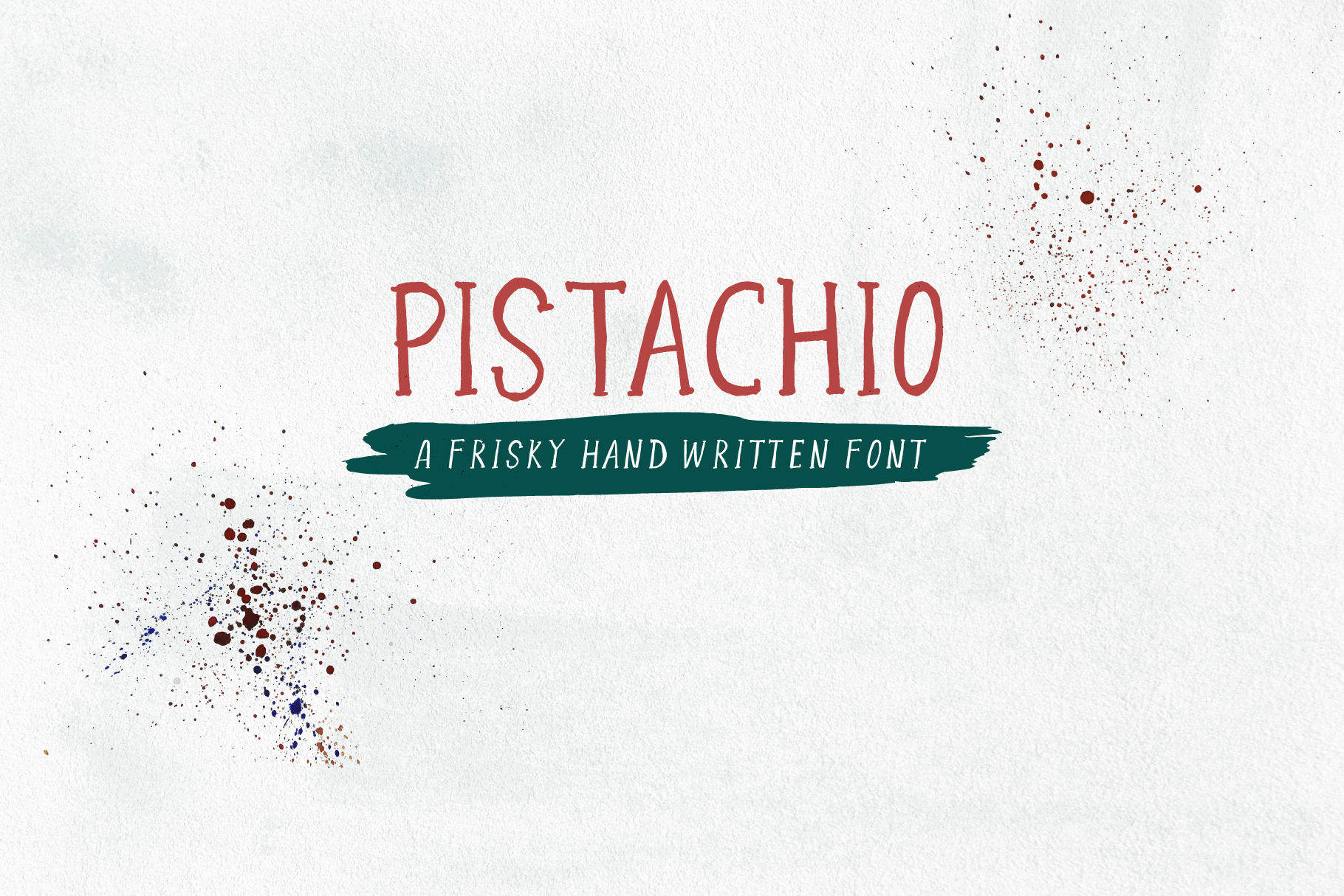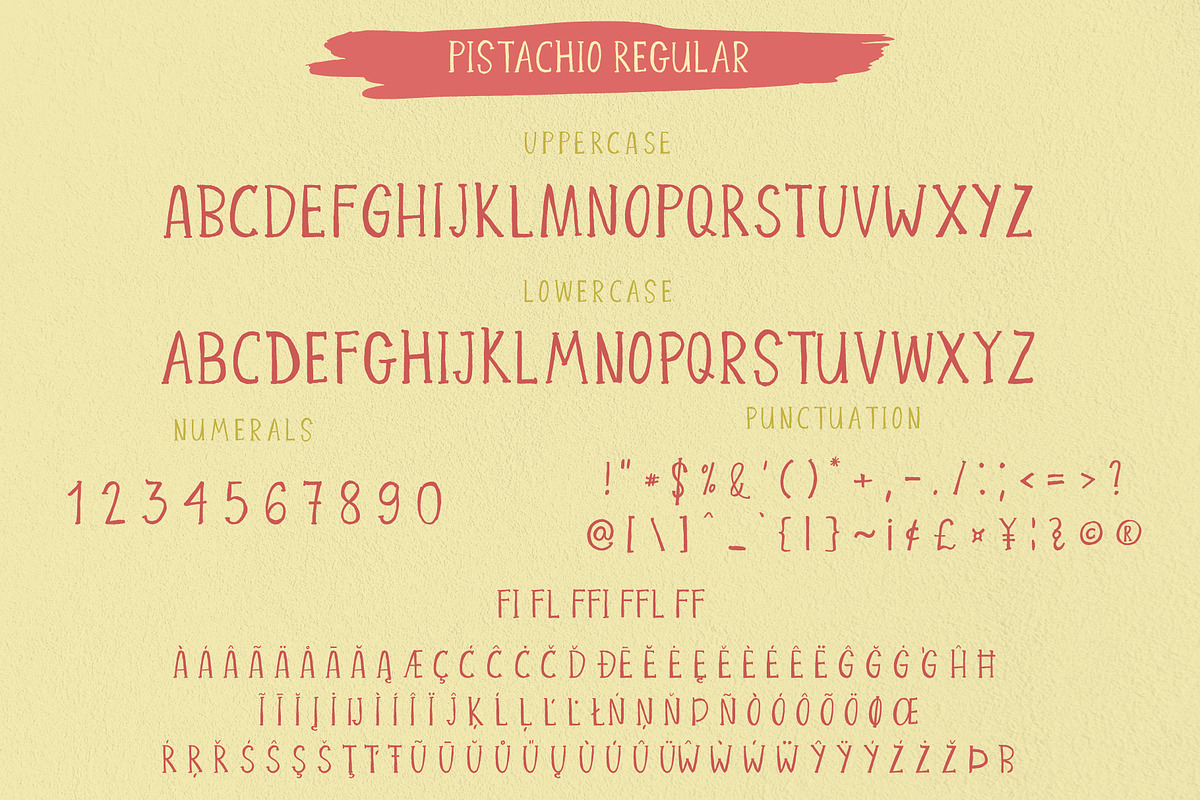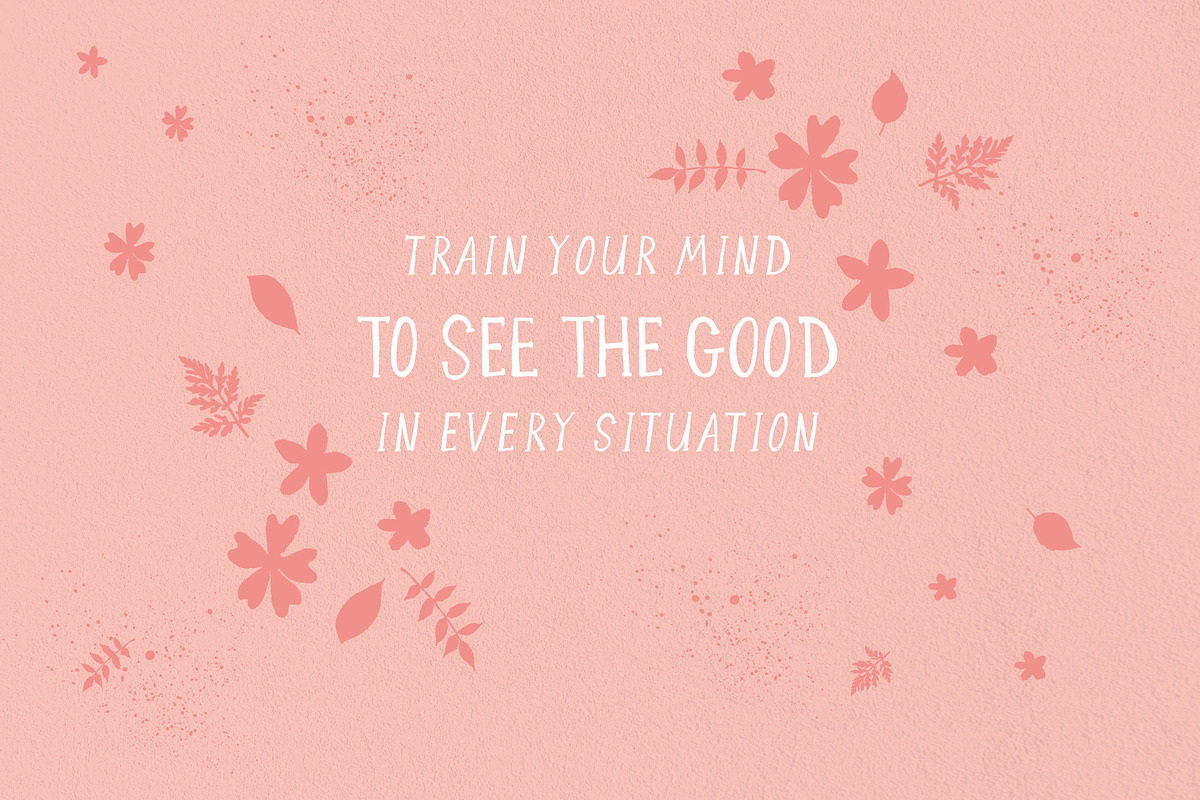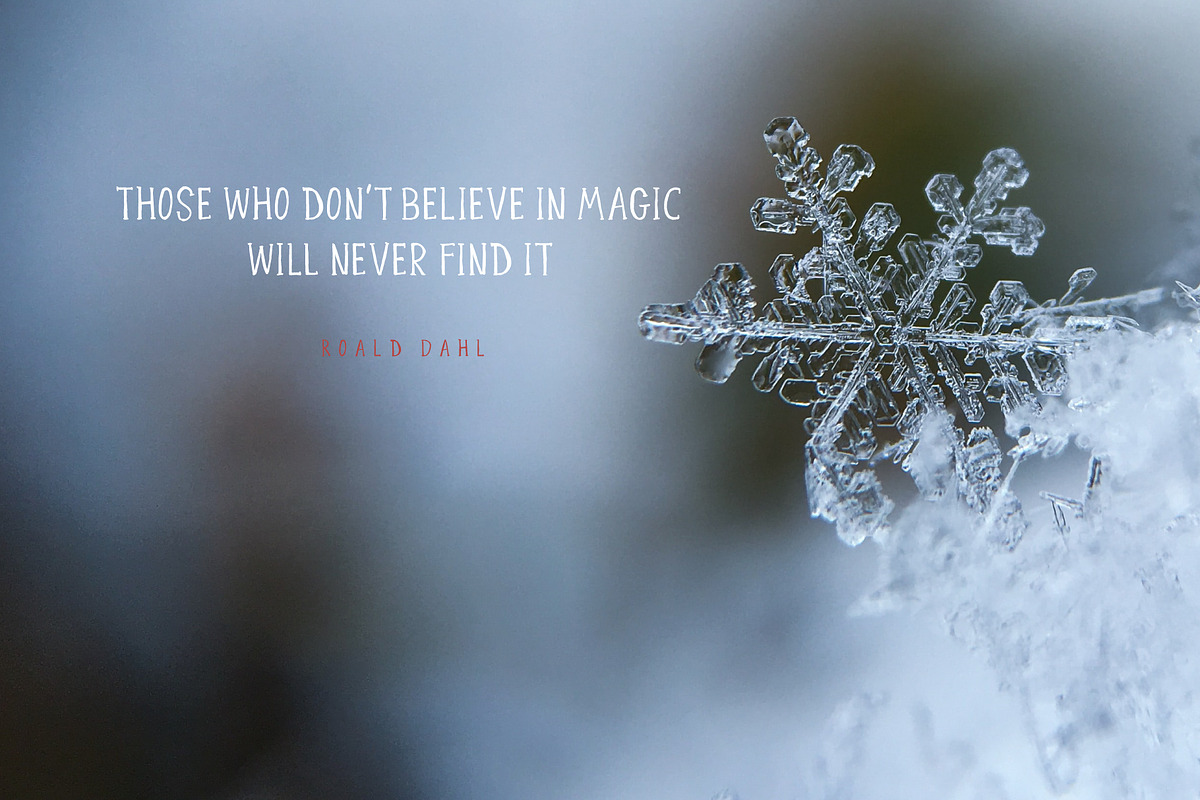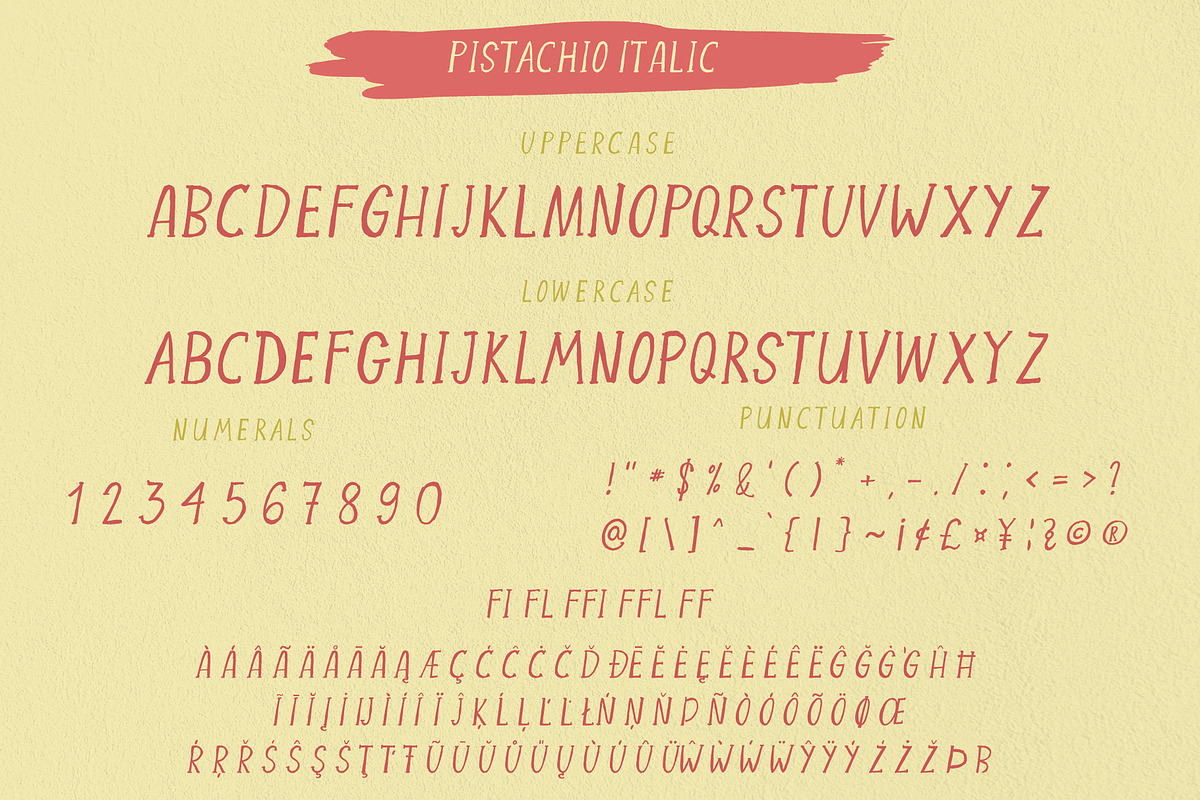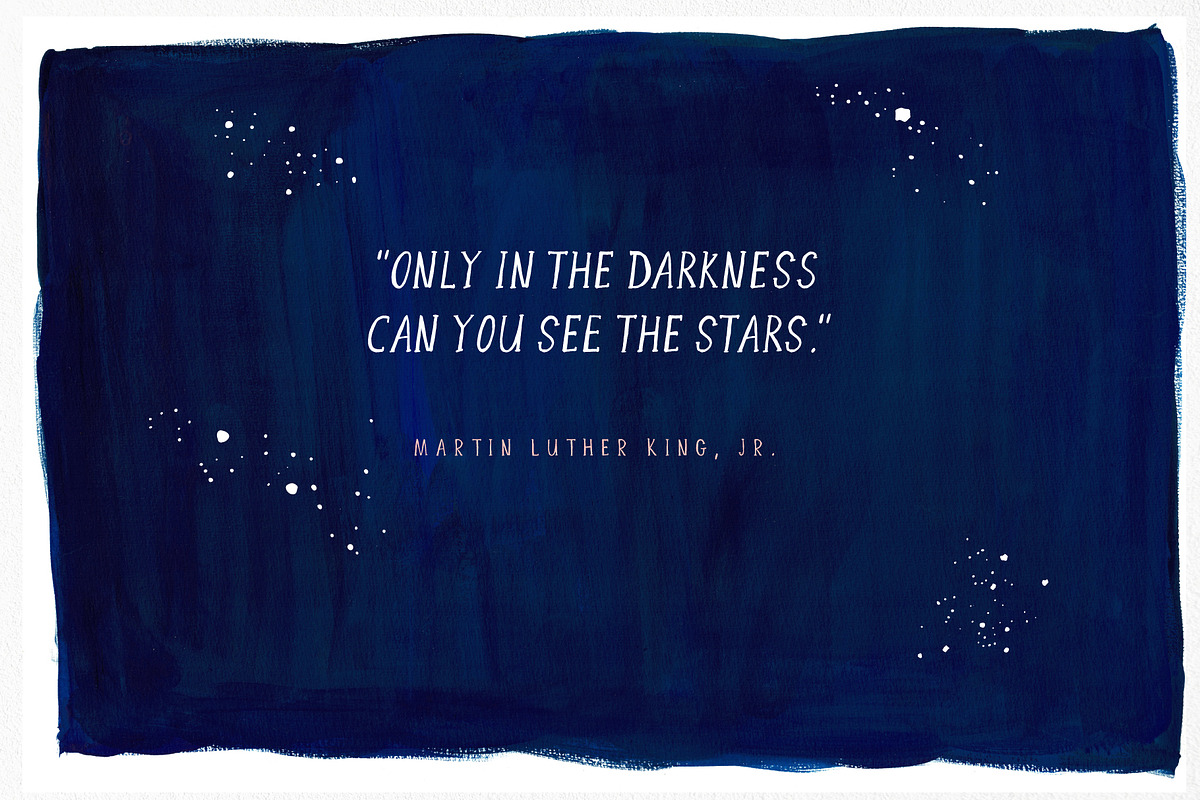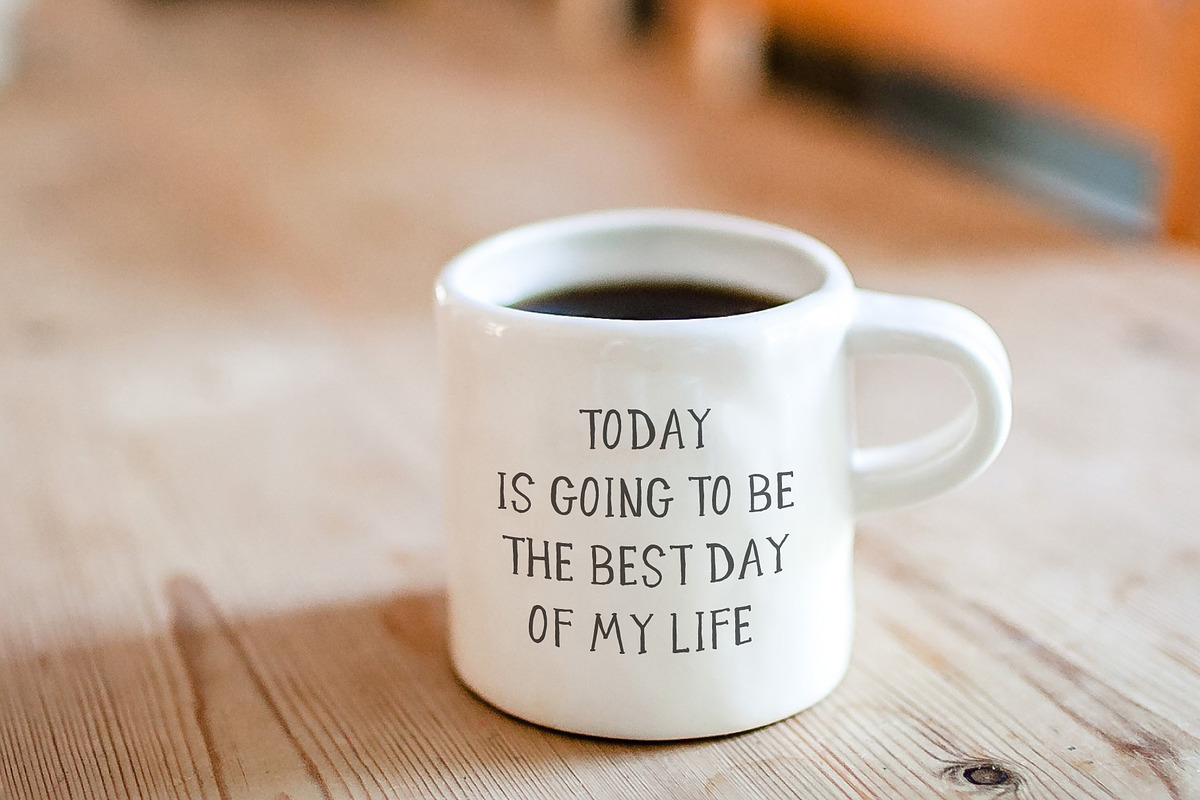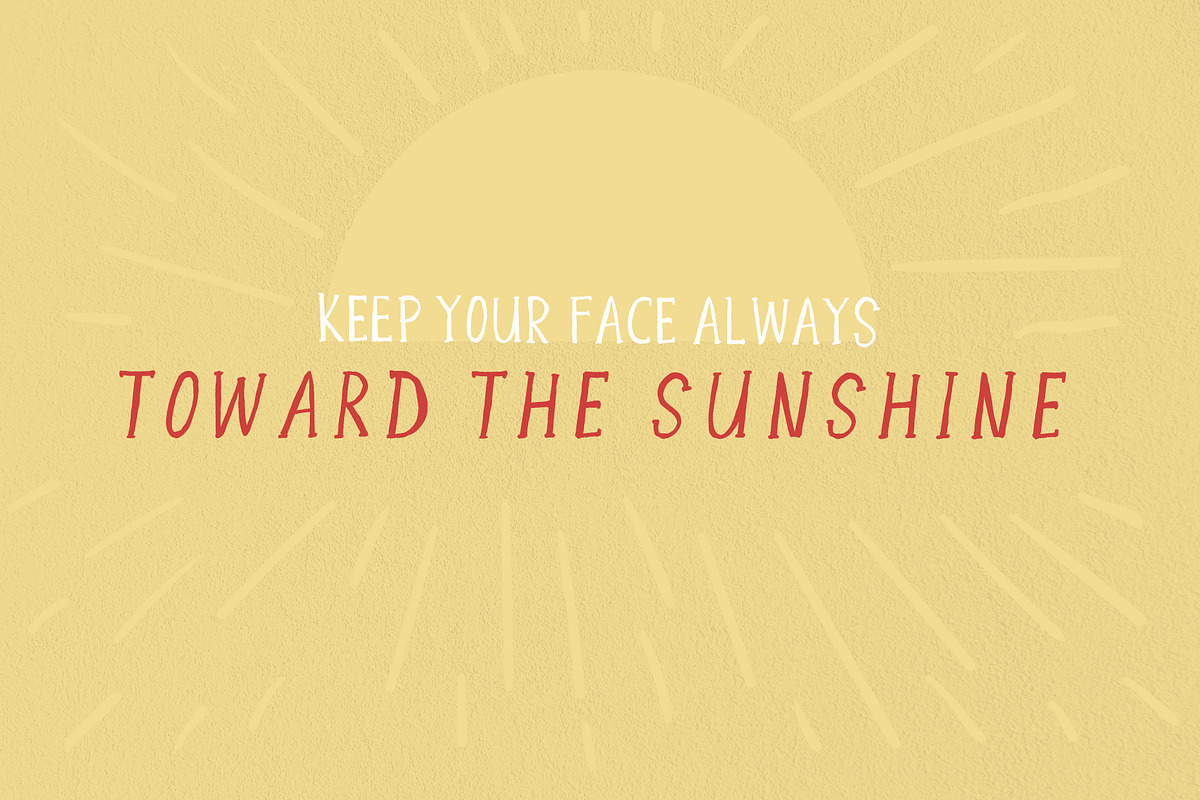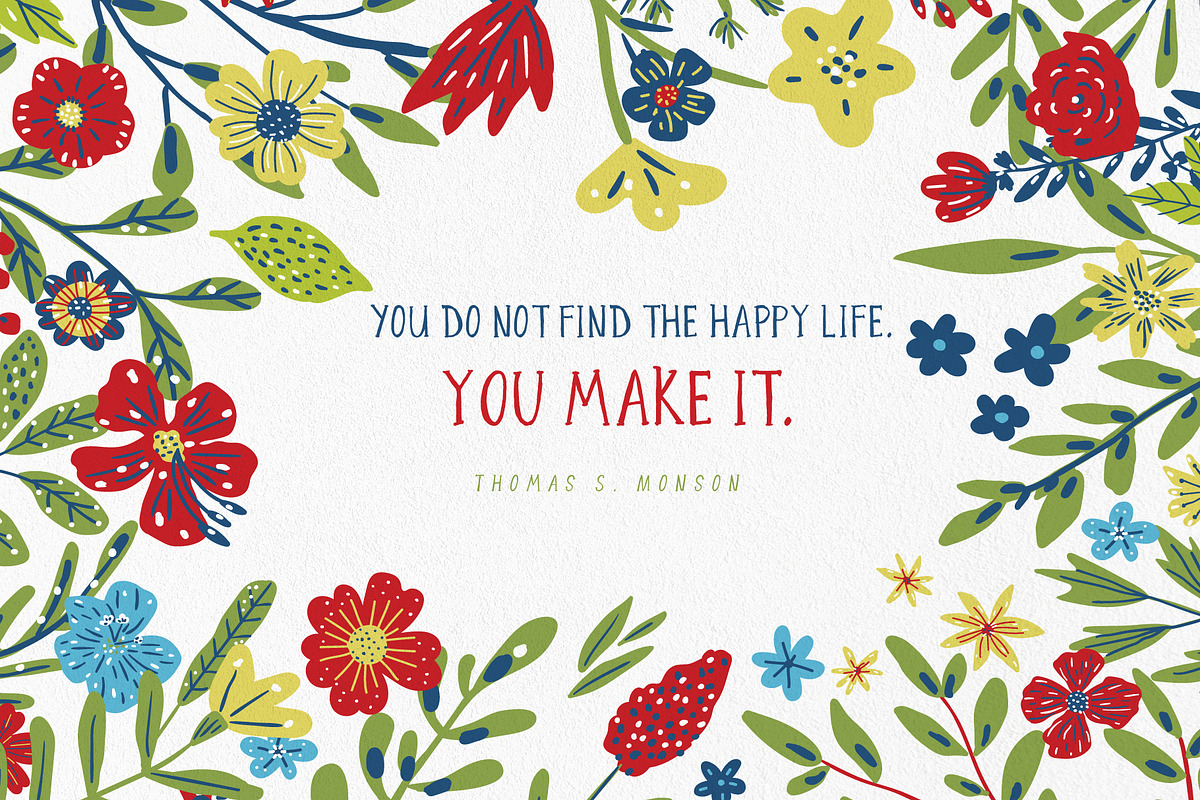
Pistachio - Frisky Handletterd Font
Introducing Pistachio All Caps Font.
This is a frisky fun hand letered font with all caps letters. You can vary upper and lowercase characters to achieve a natural flowing look. Also included a slightly slanted version.
Supporting international languages. Will be great on cards, posters, greeting cards, branding and more :)